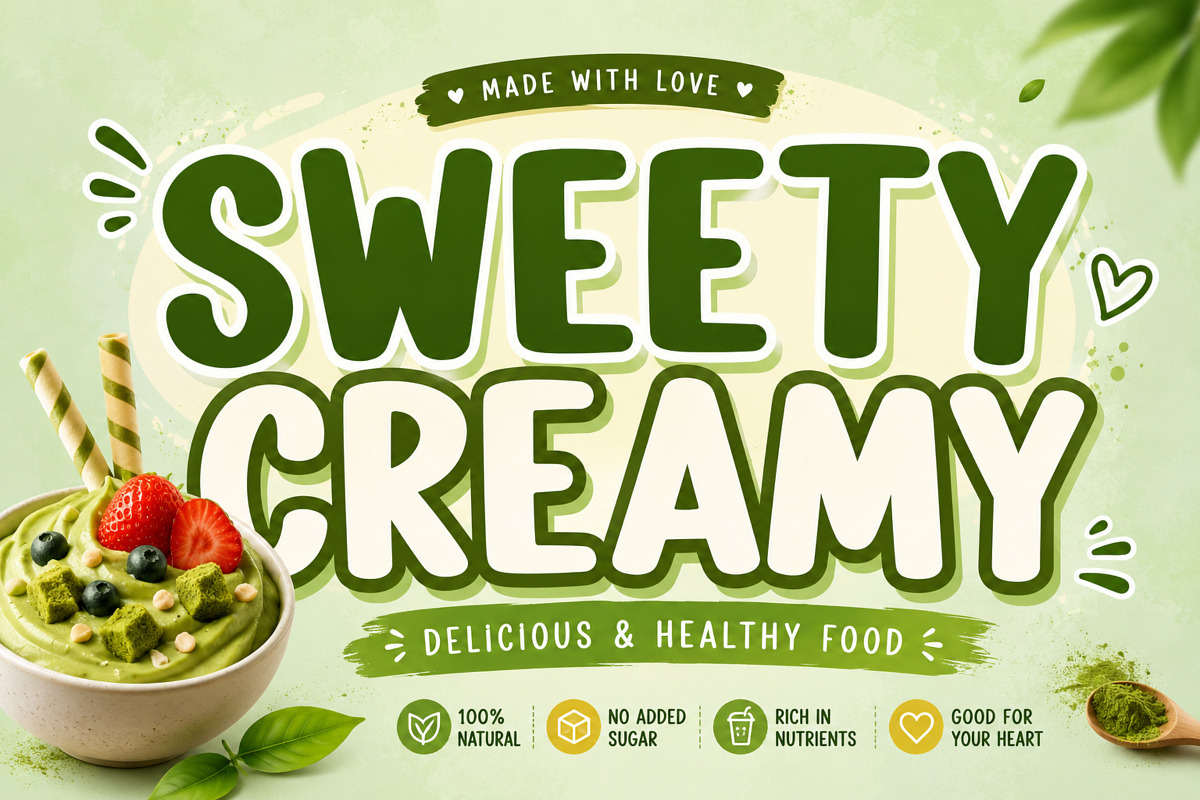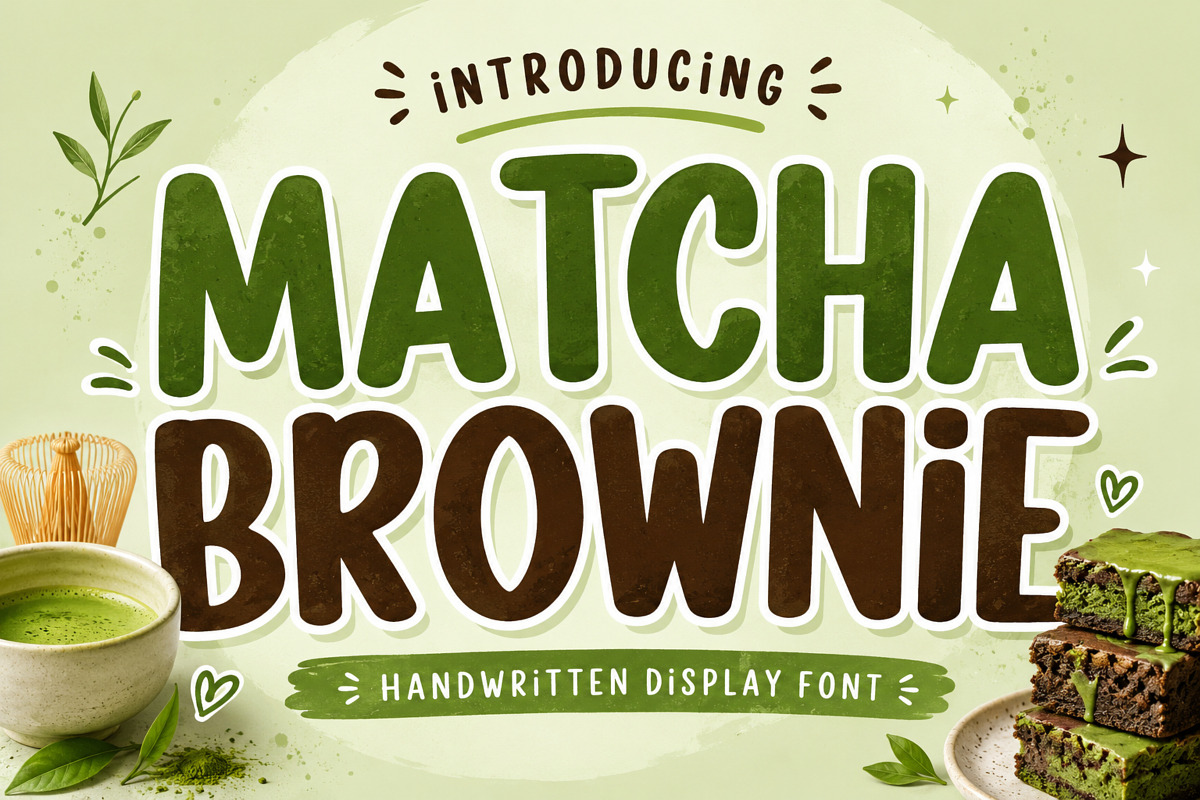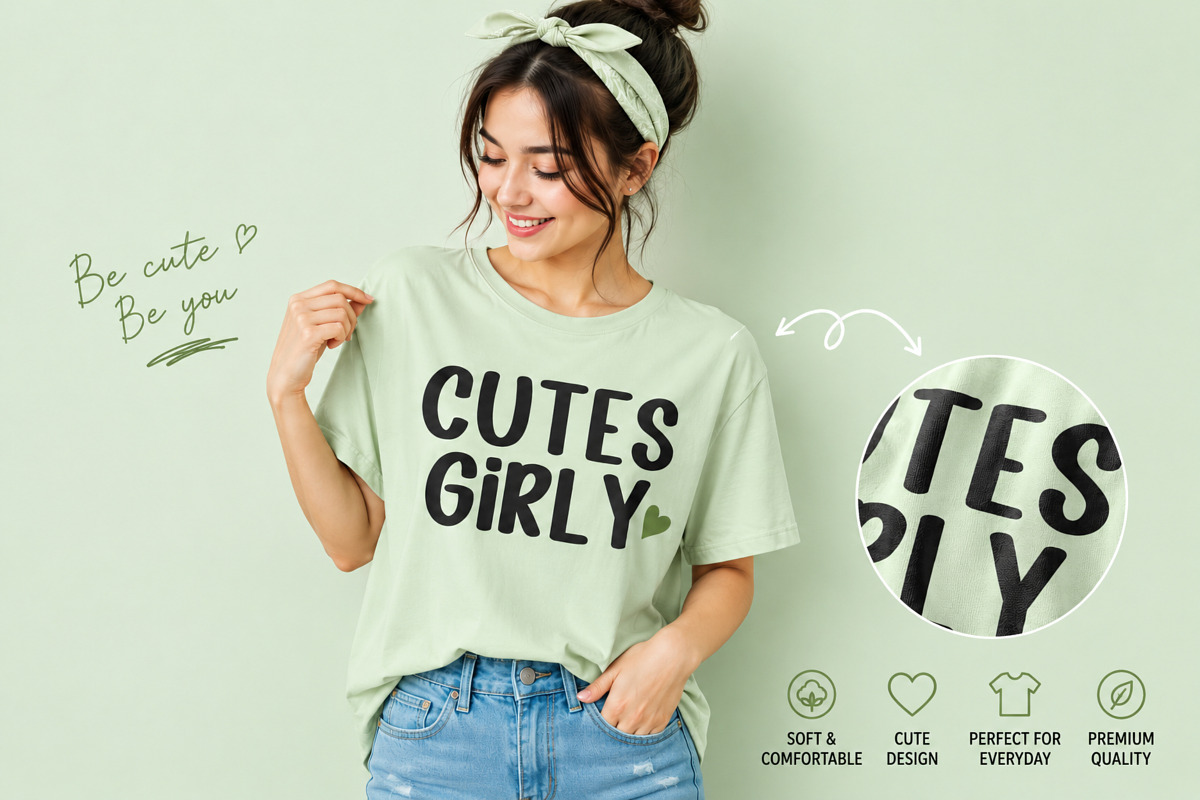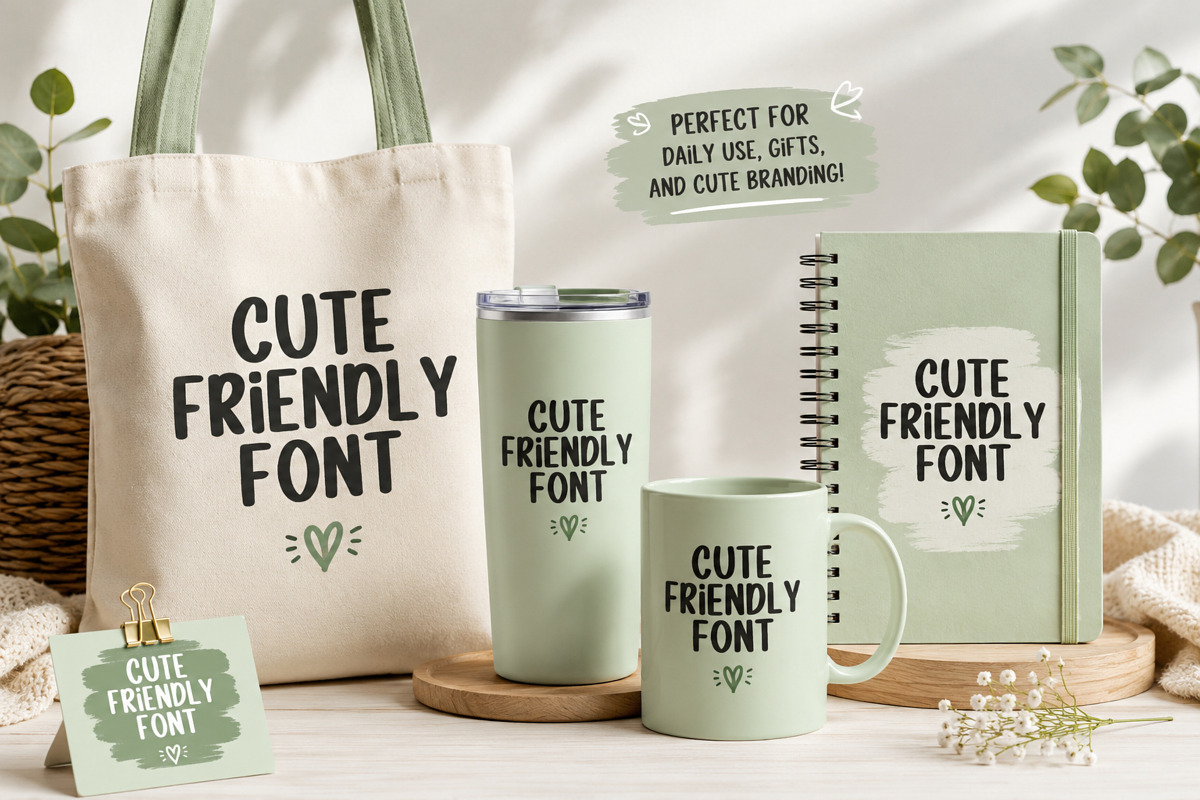
Matcha Brownie
Matcha Brownie is a charming handwritten display font inspired by sweet desserts and cozy café aesthetics. Featuring bold strokes and soft rounded edges, this font delivers a fun and friendly personality perfect for modern creative projects.
Ideal for branding, packaging, social media, posters, and especially food-related designs such as bakery, café, and dessert products.
Add a touch of sweetness and personality to your designs with Matcha Brownie!
Handwritten display style
Bold & rounded characters
Clean and readable
Perfect for food & branding projects
Modern & playful look